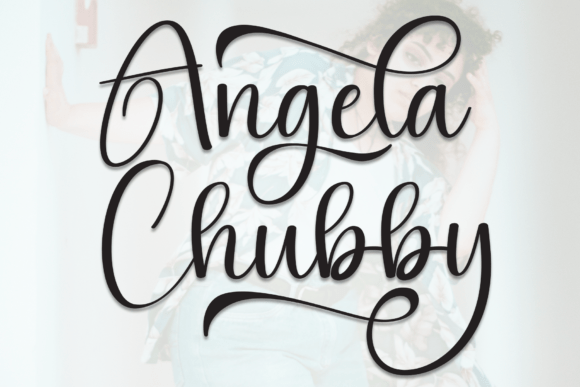
The Perfect Script for Your Next Design Project
Have you ever been browsing through a beautifully designed website or social media post, only to find yourself wondering what makes it so visually appealing? For designers, this is often a moment of inspiration – a spark that sets off a chain of creative ideas and possibilities. And for those looking to add a touch of elegance to their next project, the Angela Chubby Font is a game-changer.
This beautiful script font boasts delicate lines and flowing curves, making it perfect for branding, wedding invitations, social media posts, and feminine product packaging. The Angela Chubby Font blends timeless charm with simplicity, giving your design a soft and sophisticated flair that’s sure to impress.
Angela Chubby Font Key Features
- Font Family: Angela Chubby
- Font Styles: Regular, Bold, Italic, Bold Italic
- Unique Characteristics: Hand-drawn design, rounded edges, and a playful feel make Angela Chubby ideal for creating friendly and approachable typography in various applications, such as logos, headings, and body text.
Angela Chubby Font Review
Overall, I think the Angela Chubby Font has its strengths, but also some notable weaknesses.
- ✨ The font is undeniably unique and eye-catching, making it perfect for adding a touch of personality to your designs.
- ✨ The bold and chunky design is ideal for headlines and titles, grabbing the reader’s attention and adding a sense of playfulness.
- ✨ The font is highly customizable, allowing you to adjust the weight, size, and color to fit your design needs.
- ⚠️ The font may not be suitable for body text, as it can be difficult to read in smaller sizes or when used extensively.
- ⚠️ The font’s boldness can sometimes make it feel overwhelming or even childish, depending on the context.
- ⚠️ The font may not be as versatile as some other fonts, making it less suitable for a wide range of design applications.
Overall, I think the Angela Chubby Font is a great addition to any designer’s toolkit, but it’s essential to use it thoughtfully and in the right context.
Use the Angela Chubby Font for creating playful and whimsical designs, such as children’s books, party invitations, and social media graphics.
Experiment with different font sizes and styles to create a unique and eye-catching design.
The Angela Chubby Font is perfect for:
- Social media graphics and advertisements
- Playful website headers and footers
Alternatives to Angela Chubby Font
Amatic SC
Amatic SC is a sans-serif font with a playful, handwritten feel. It is ideal for use in logos, titles, and other text where a casual, friendly tone is desired. Compared to Angela Chubby Font, Amatic SC has a more modern and clean appearance, making it suitable for a wider range of design applications.
Great Vibes is a script font with a relaxed, cursive feel. It is perfect for use in invitations, posters, and other materials where a creative and expressive tone is desired. While Angela Chubby Font has a more rounded and chunky appearance, Great Vibes has a more elegant and flowing appearance.
Anton
Anton is a modern sans-serif font with a bold and geometric feel. It is ideal for use in headlines, titles, and other text where a strong and modern tone is desired. Compared to Angela Chubby Font, Anton has a more minimalist and sleek appearance, making it suitable for use in a variety of design applications.
Playfair Display is a luxurious script font with an elegant and refined feel. It is perfect for use in high-end materials, such as wedding invitations and luxury product packaging, where a sophisticated and elegant tone is desired. While Angela Chubby Font has a more playful and casual appearance, Playfair Display has a more formal and sophisticated appearance.
3 Creative Project Ideas Using Angela Chubby Font
Create unique and eye-catching wedding invitations that showcase the playful, cursive feel of the Angela Chubby Font. Use this font to add a touch of elegance and whimsy to your invitations.